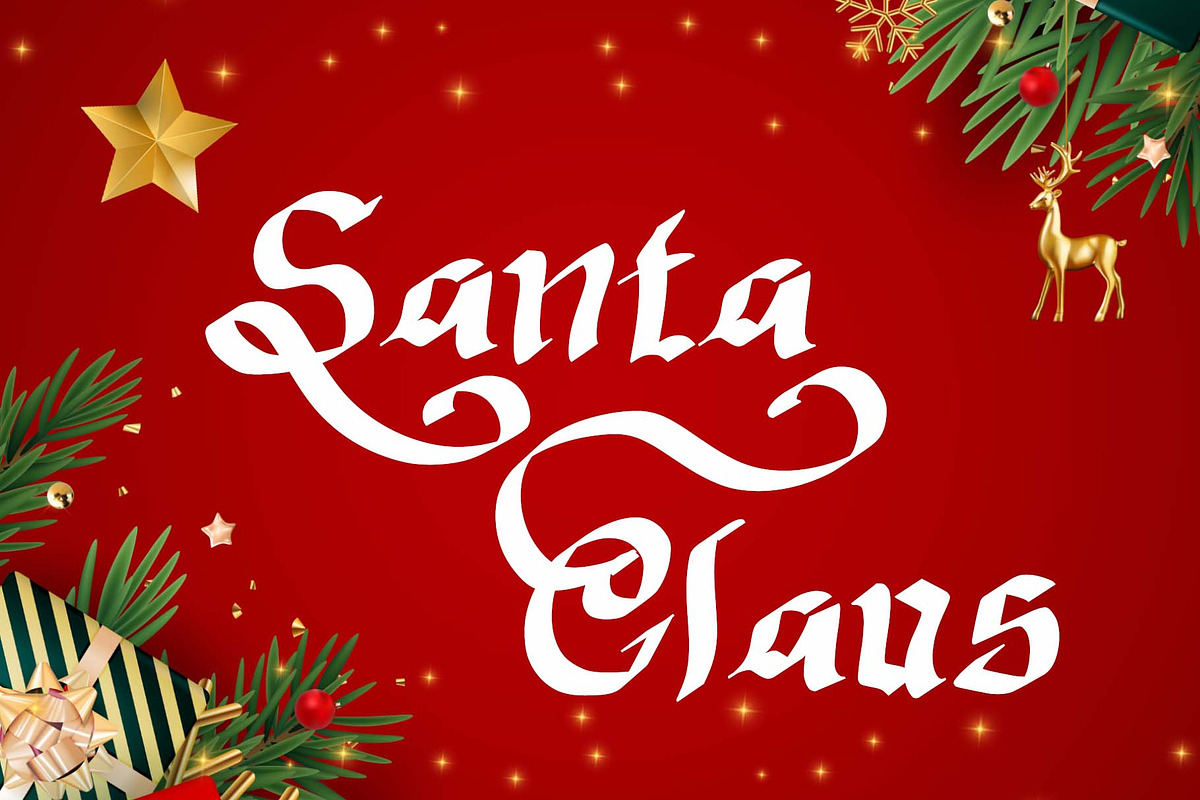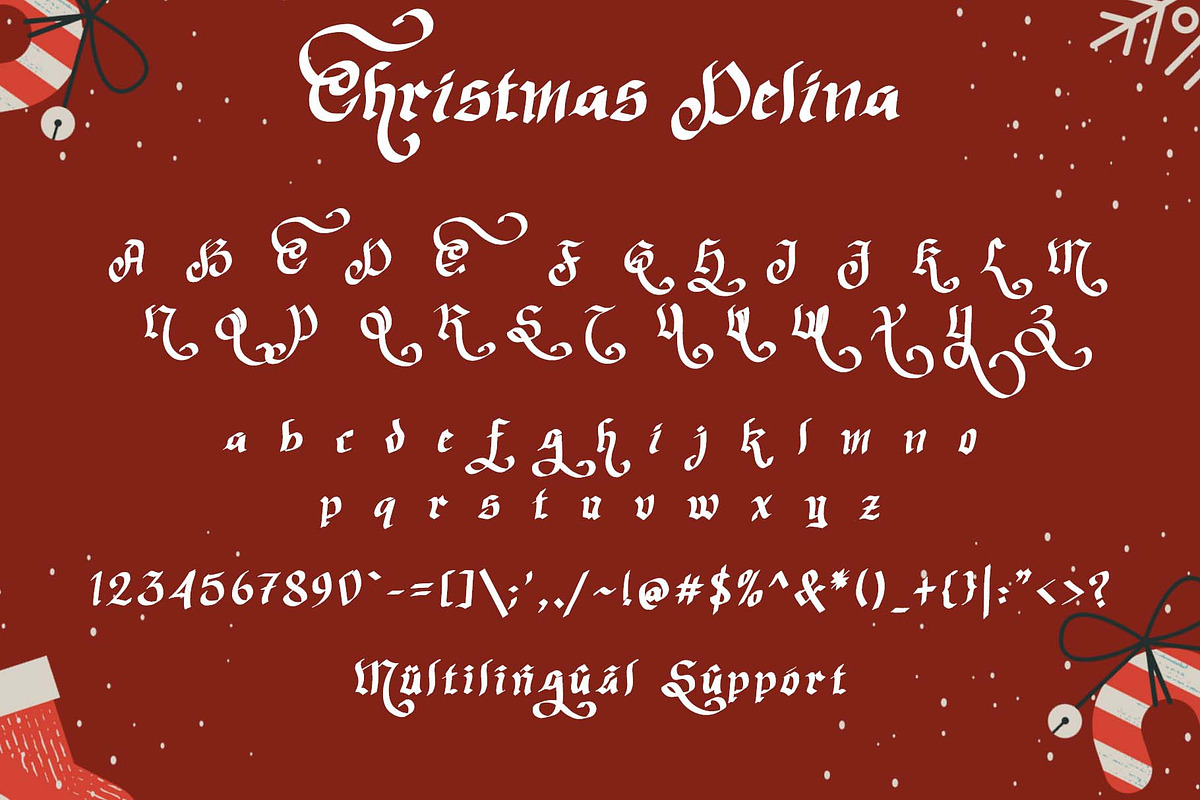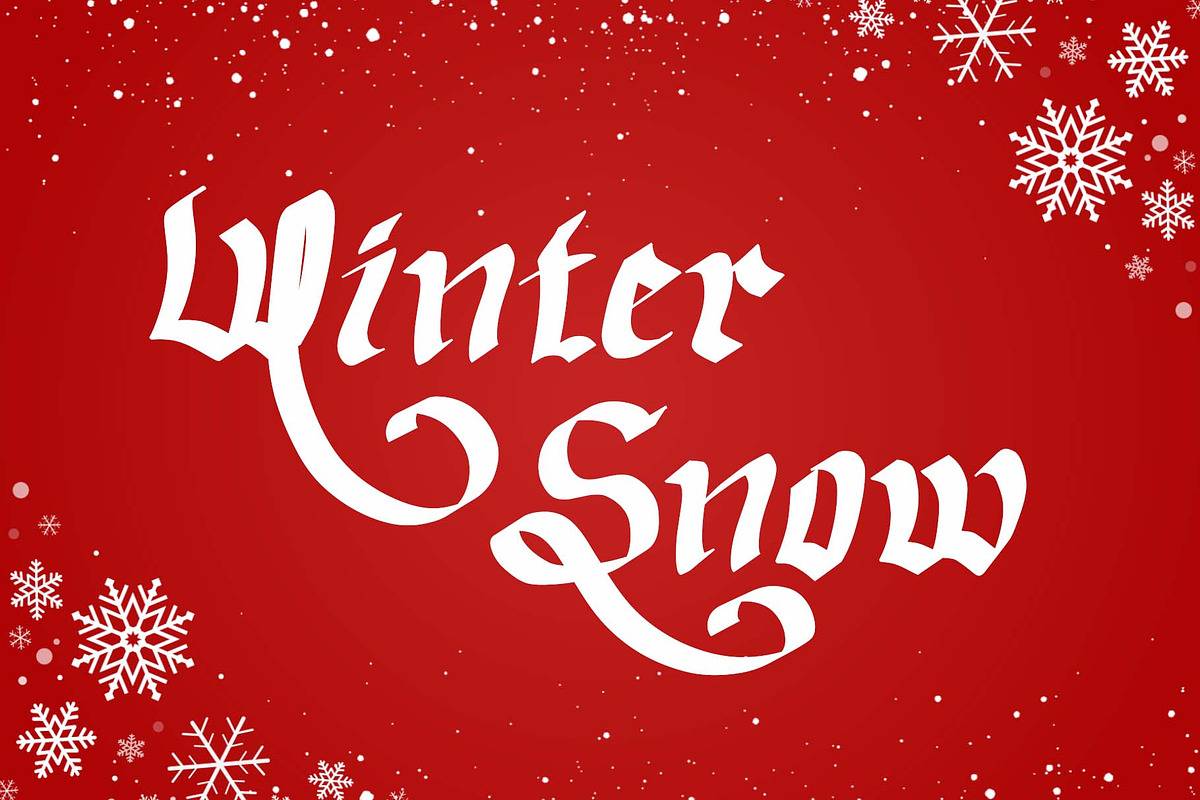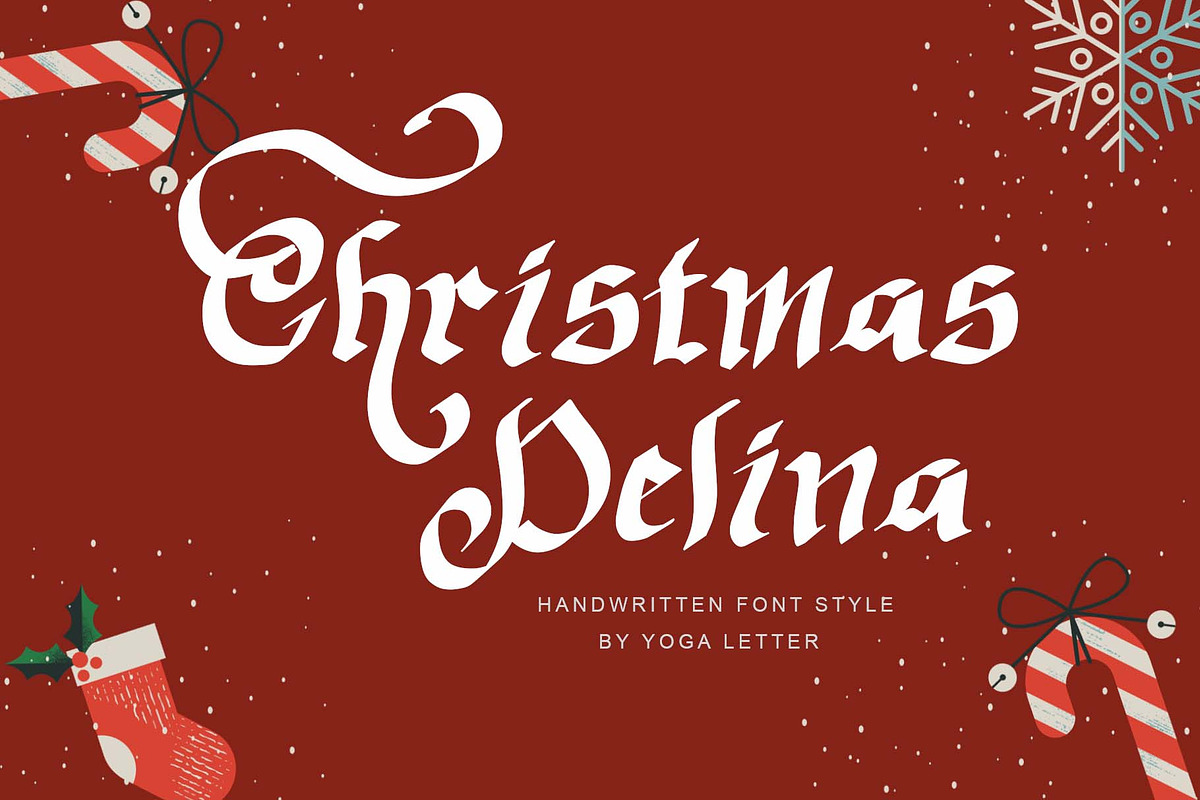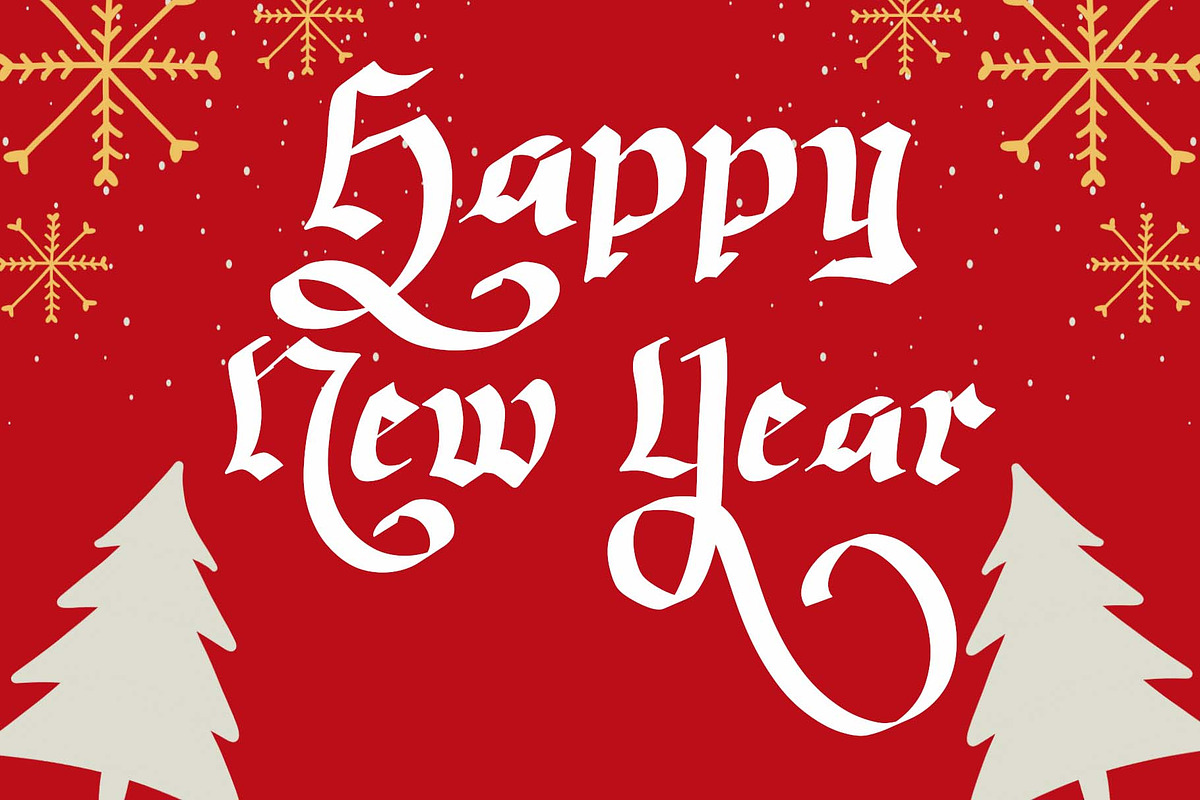
Christmas Delina
"Christmas Delina" is a beautiful and elegant handwritten font. This font is equipped with uppercase, lowercase, numerals, punctuation, and multilingual support. Very suitable for Christmas, winter, Valentine's, wedding, photography, spring, engagement, invitations, and others.